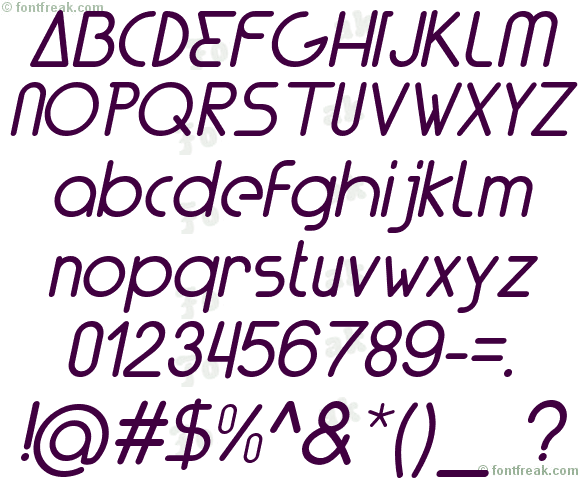
Lunar Italic
Lunar Italic is a captivating typeface designed by Kong Font, classified as a display font. This unique font features a distinct italic style that exudes elegance and creativity, making it a versatile choice for a variety of design projects. The strokes are moderately thick, providing a balanced contrast that enhances readability while maintaining a stylish appearance. The spacing between letters is carefully crafted, ensuring a harmonious flow that draws the eye without overwhelming the viewer.
The visual characteristics of Lunar Italic include smooth, sweeping curves that give the font a dynamic feel. These decorative elements contribute to its modern aesthetic, making it an excellent choice for projects that aim to convey sophistication and artistic flair. With its striking design, Lunar Italic is particularly well-suited for use cases such as wedding invitations, where elegance is paramount; movie posters, which often require an eye-catching display; restaurant menus that benefit from a stylish yet legible typeface; and branding materials aimed at attracting a contemporary audience.
The target audience for Lunar Italic includes graphic designers looking to enhance their projects with a unique typeface, small business owners who want to stand out with distinctive branding, and content creators seeking to add a touch of creativity to their digital and print materials.
In conclusion, Lunar Italic font free download presents an opportunity for designers and creators to enrich their work with a font that not only stands out but also embodies a sense of modernity and elegance. Its versatility and unique visual appeal make it a valuable addition to any designer's toolkit, ensuring that projects leave a lasting impression.